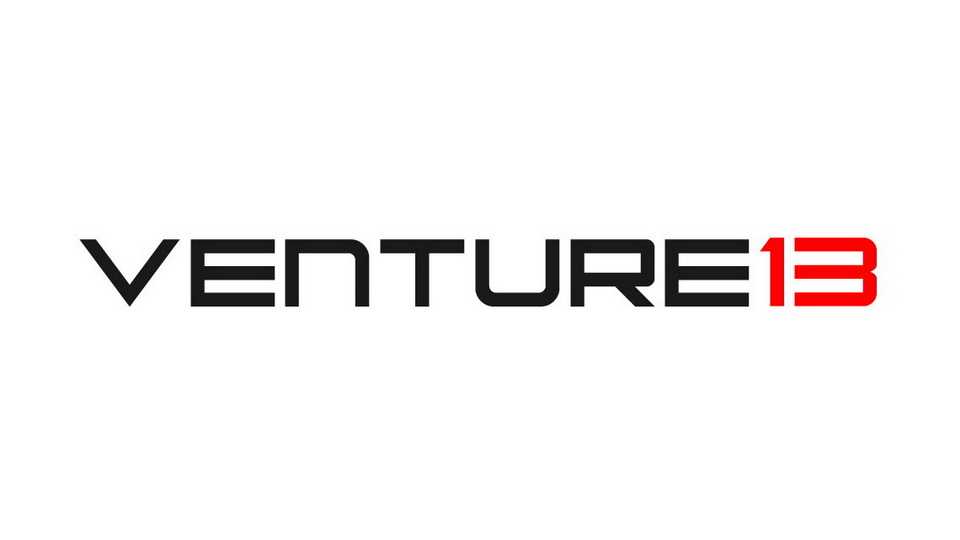
Download Venture13 typeface, a display font family in 3 weights, that conveys overall feeling of 1980’s retro futurism reminiscent of the Porsche logo of that era.
Designer: Shawn Willings